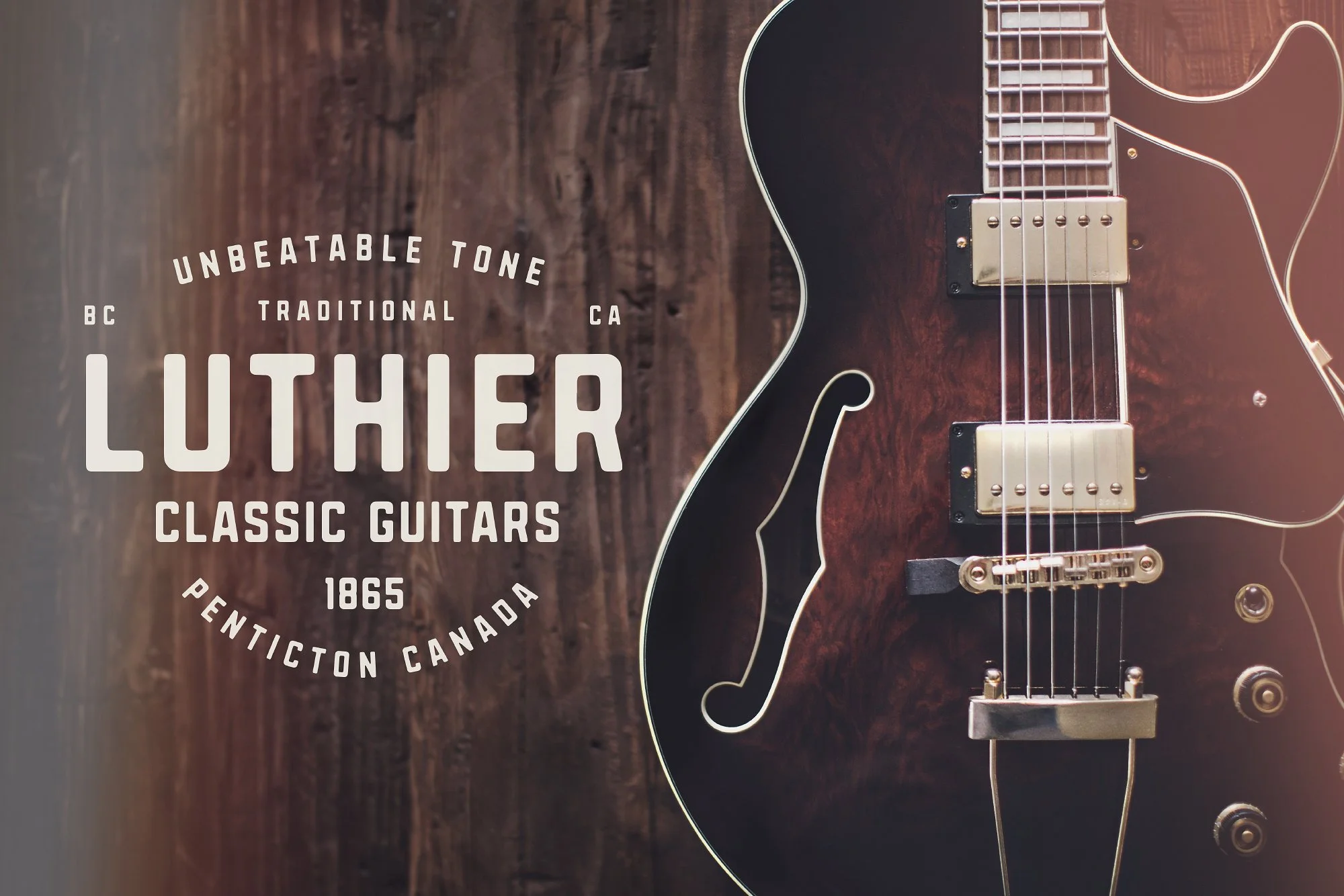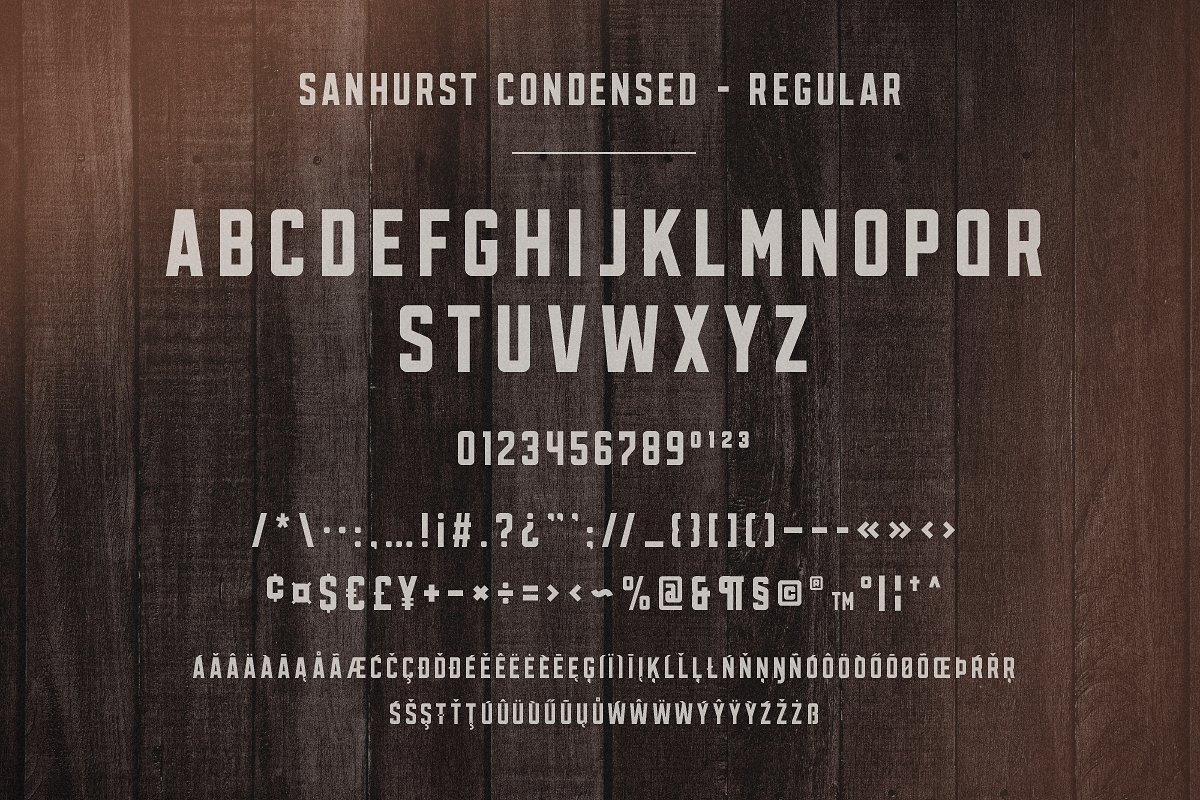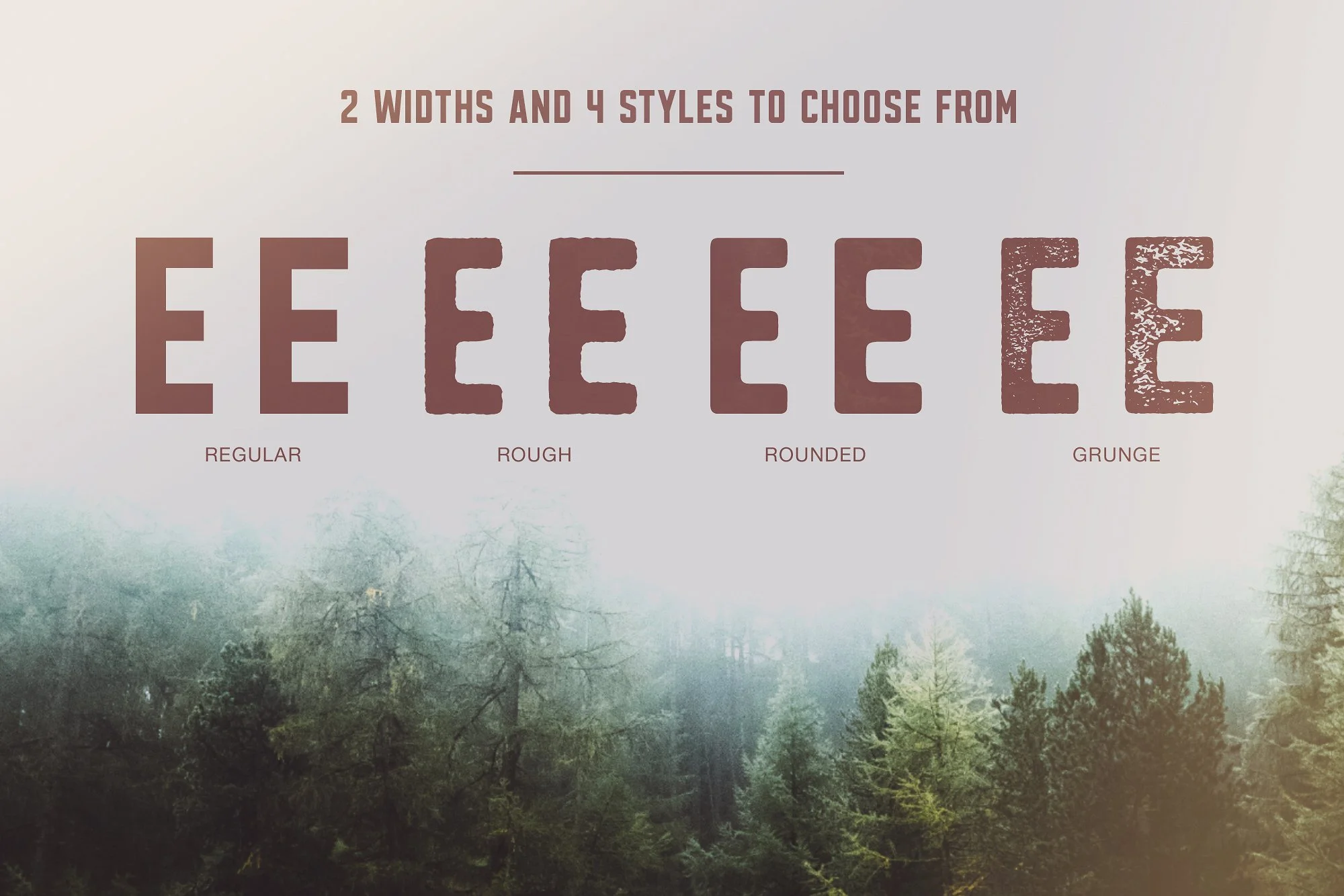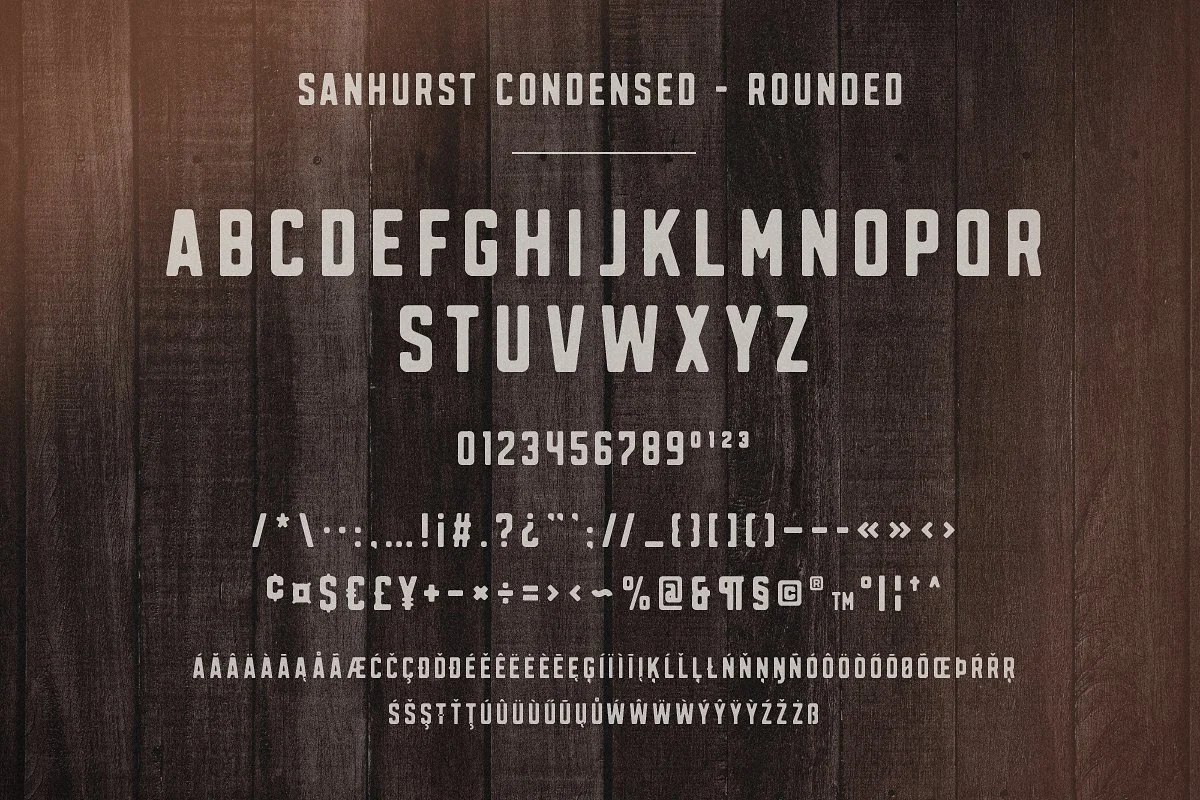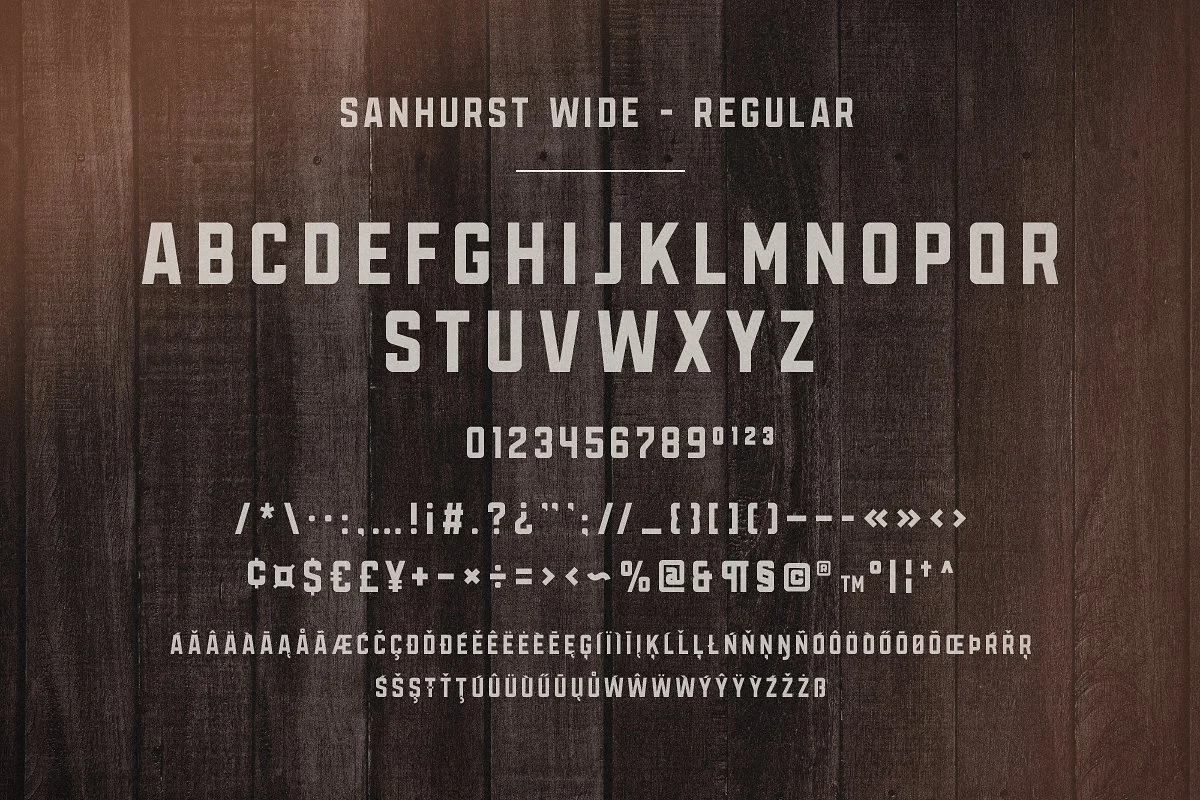
Sanhurst Font
Sanhurst is a versatile family of fonts designed for strong, classic branding. Rounded, rough and grunge versions are included to give your design a little more of a retro printed look while the regular versions are great for a more modern, digital look. The edges of the characters are a lot more 'boxy' than your average font which gives off a strong, industrial feel. Sanhurst works fantastic for website headers, clothing designs, magazine advertisements, logos, branding and much more.
- Sanhurst Condensed Regular
- Sanhurst Condensed Rough
- Sanhurst Condensed Rounded
- Sanhurst Condensed Grunge
- Sanhurst Wide Regular
- Sanhurst Wide Rough
- Sanhurst Wide Rounded
- Sanhurst Wide Grunge